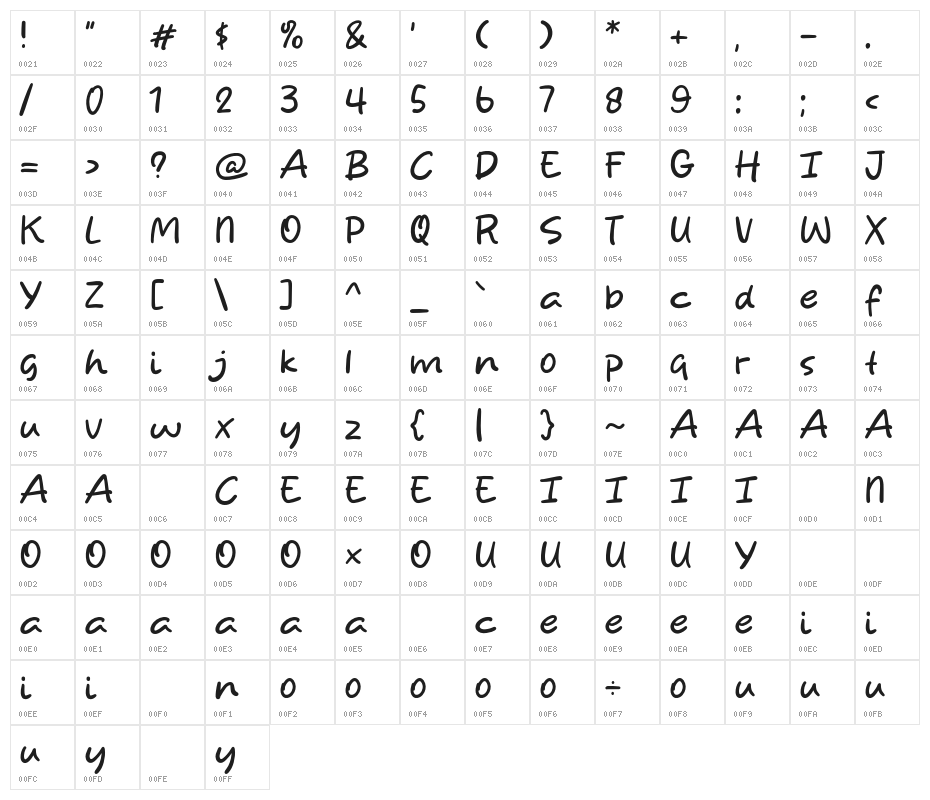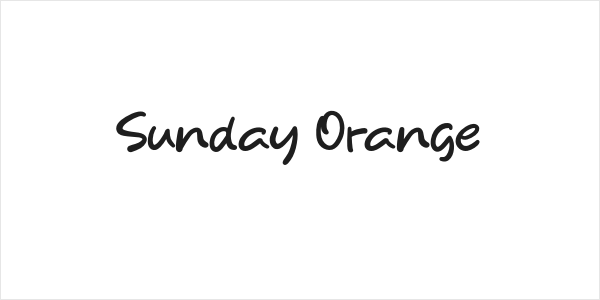
Sunday Orange Font
Sunday Orange Description
This font exudes a playful and casual handwritten style, characterized by its smooth, flowing curves and slightly irregular letterforms. The strokes are consistent in thickness, giving it a uniform appearance while maintaining a personal touch. The font's informal nature makes it approachable and friendly, suitable for projects that require a human touch. The characters are well-spaced, ensuring readability without compromising the aesthetic. Its simplicity and charm make it versatile for various creative applications.
| Proposed Projects | Ideal for greeting cards, children's books, personal blogs, and casual branding projects. |